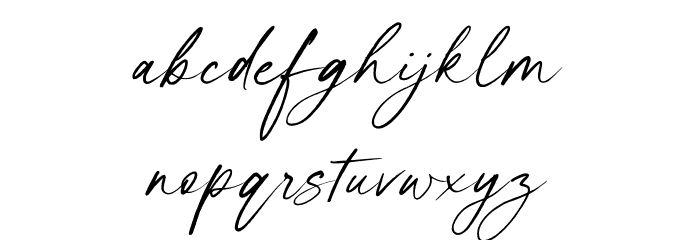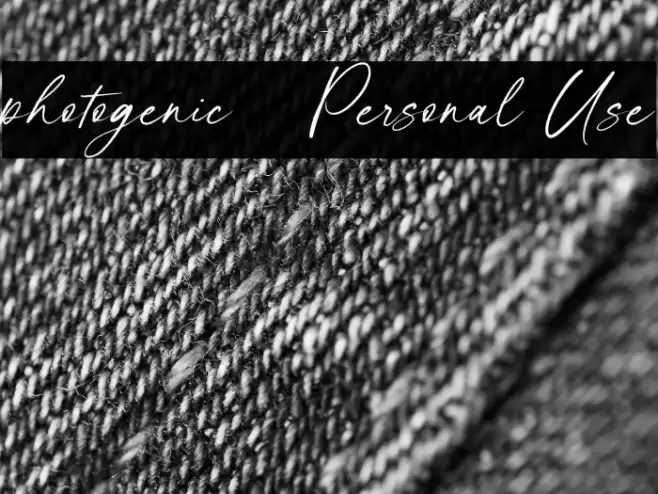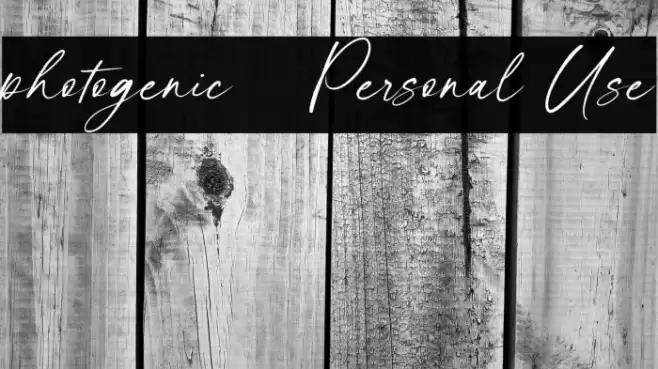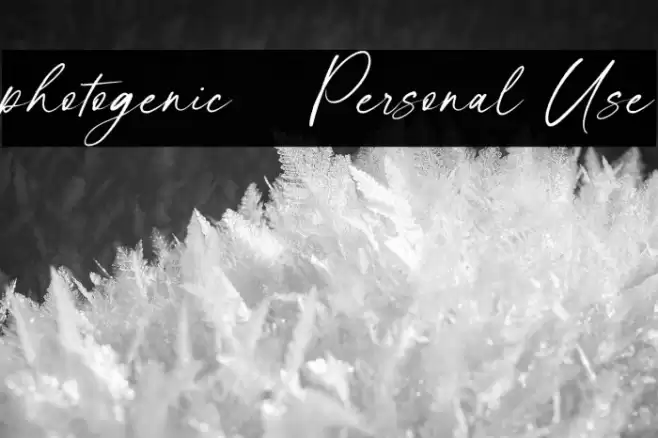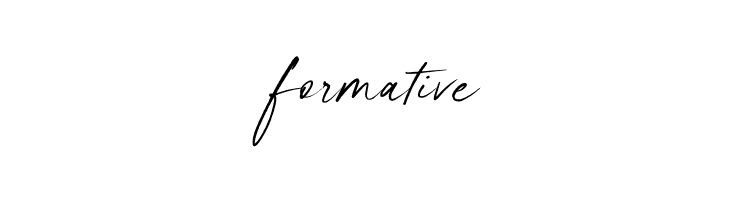
photogenic - Personal Use Font
This font exudes elegance and sophistication with its fluid, cursive style. The characters are gracefully connected, creating a seamless flow that is both artistic and refined. The uppercase letters are tall and slender, with delicate curves that add a touch of flair. The lowercase letters maintain a consistent style, with smooth transitions and a slightly more compact form. The overall appearance is reminiscent of elegant handwriting, making it suitable for projects that require a personal touch. The font's thin strokes and high contrast between thick and thin lines enhance its readability while maintaining an air of sophistication.
An elegant, cursive font with fluid, connected characters and high contrast.
- Proposed Projects: Ideal for wedding invitations, elegant branding, personal stationery, and artistic projects.
- Overall Style: Elegant, Artistic
- Use Case: Logos, Invitations, Personal stationery